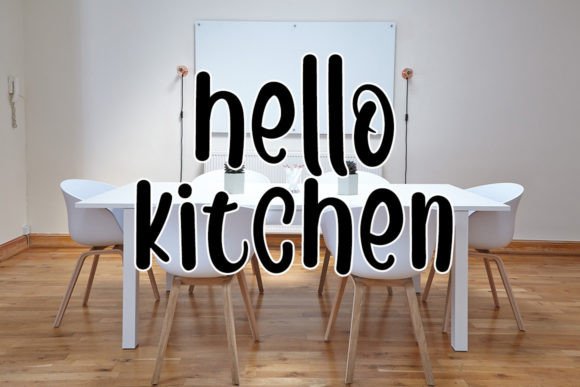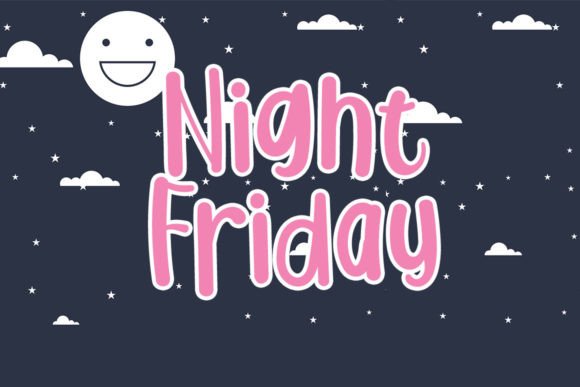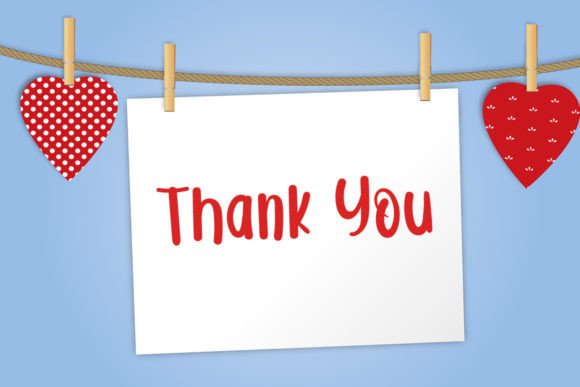
Introduction to Broken Sweet Font
Have you ever been working on a creative project, pouring your heart and soul into it, only to feel like something’s missing? That’s when I discovered the Broken Sweet Font – a game-changer that adds an extra layer of magic to your designs. With its fresh, clean, and elegant design, it’s no wonder why this font has captured the hearts of designers worldwide.
As a designer, you’re constantly on the lookout for that special something to elevate your projects. The Broken Sweet Font is a valuable resource that can take your designs from good to great. Its high quality and versatility make it perfect for both formal and informal projects, adding an incredibly joyful touch to your creations.
Key Features of Broken Sweet Font
- High-quality design: Broken Sweet Font offers a unique, hand-drawn aesthetic perfect for creative projects that require a touch of elegance.
- Perfect for design resources: This font is an excellent addition to any designer’s collection, offering a unique and versatile design element for creative projects.
Honest Review: Broken Sweet Font
- High-quality design: The Broken Sweet Font is well-crafted, with smooth lines and a consistent aesthetic.
- Perfect for creative projects: The font’s quirky, whimsical style lends itself well to projects that require a touch of personality.
What doesn’t work so well:
- ⚠️ Not ideal for large blocks of text: The font’s unique style can become overwhelming when used for extended periods.
Overall, I’m impressed with the Broken Sweet Font. While it may not be the best choice for every project, it’s a great addition to any designer’s toolkit. With a little creativity, this font can add a lot of character to your work.
To get the most out of Broken Sweet Font, try using it with a transparent background to create a high-quality design element. This font is perfect for use in logos, social media graphics, and other design projects where a unique and creative touch is needed.
Broken Sweet Font is commonly used in creative projects such as branding, advertising, and packaging design. Its unique style and high-quality design make it a popular choice among designers looking for a distinctive font to use in their work.